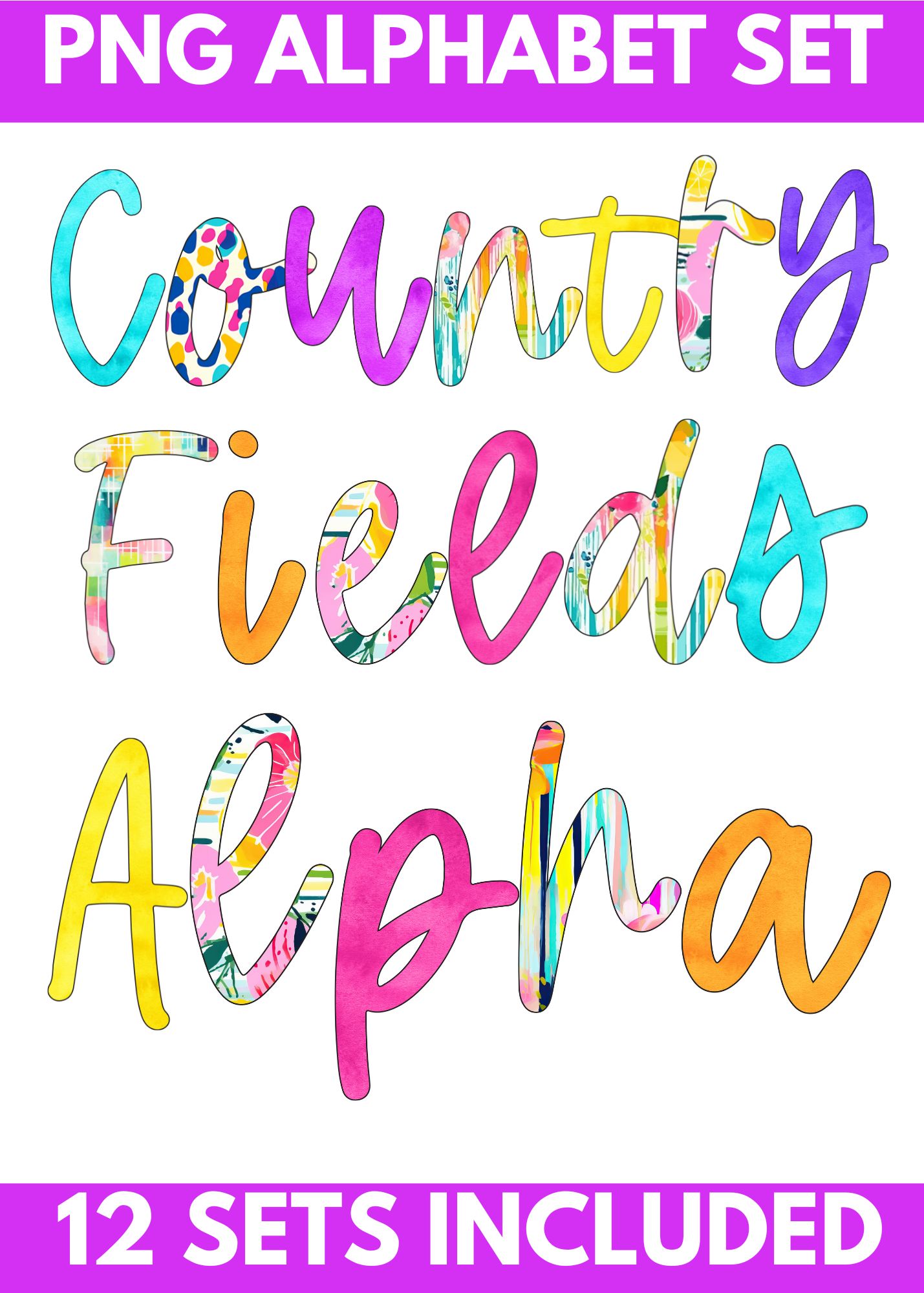
Country Fields PNG Alpha Font – 12 Complete Sets – DIGITAL DOWNLOAD
12-Set PNG Alpha Bundle – Patterned Designs
Take your designs to the next level with our PNG Alpha Bundle, featuring a variety of unique patterns! This versatile collection is perfect for T-shirt makers, crafters, and small business owners looking for creative, ready-to-use alphabets.
• 12 Unique Patterns to match any project or style.